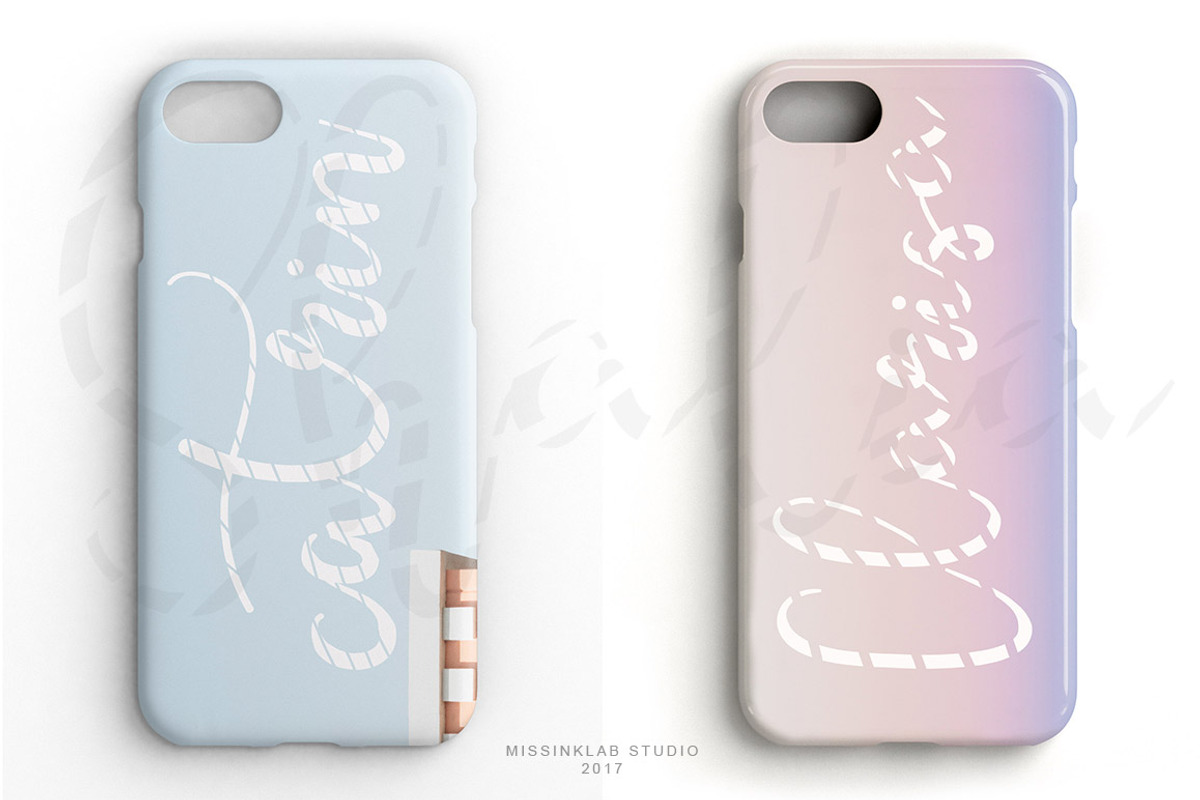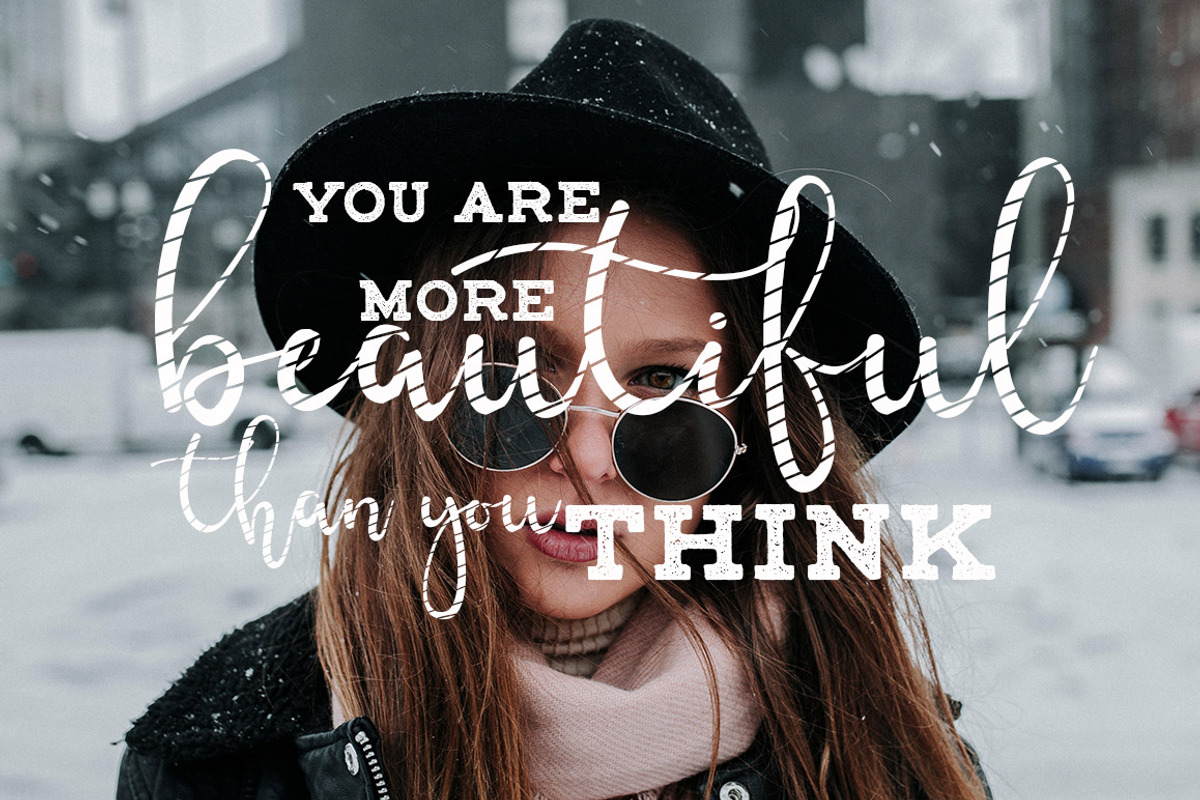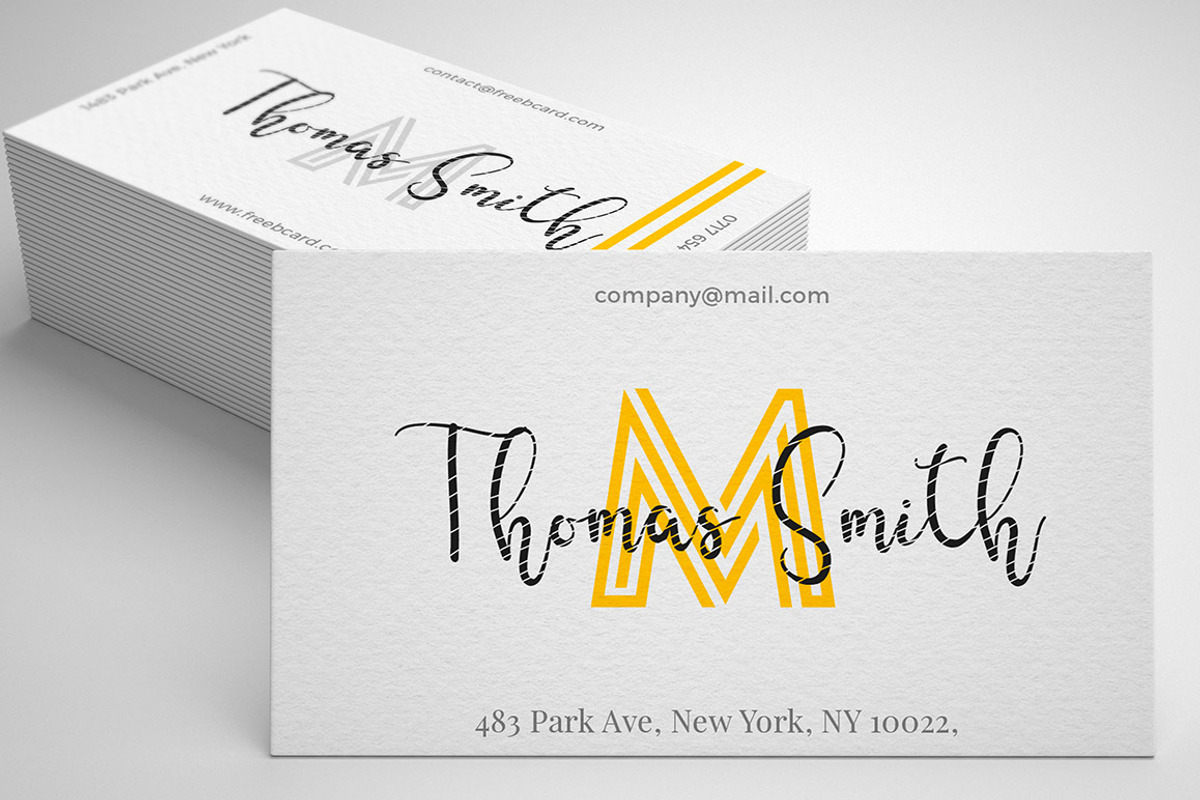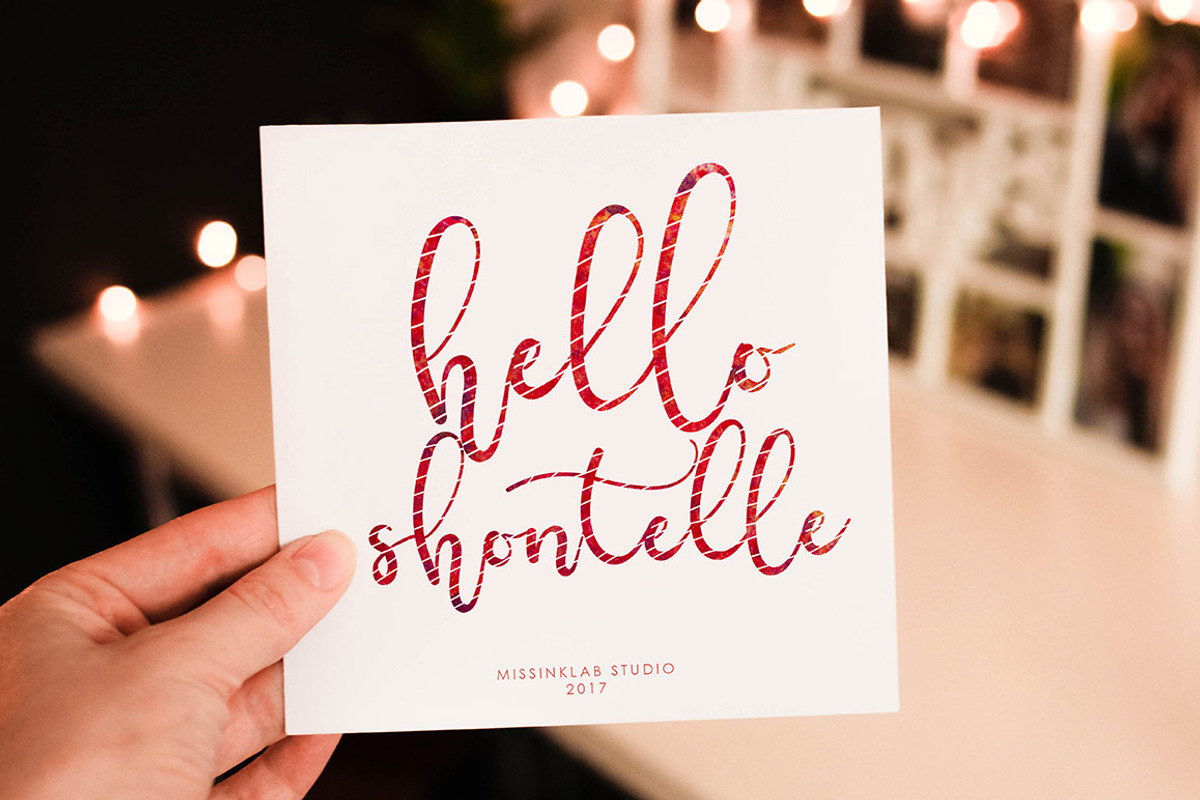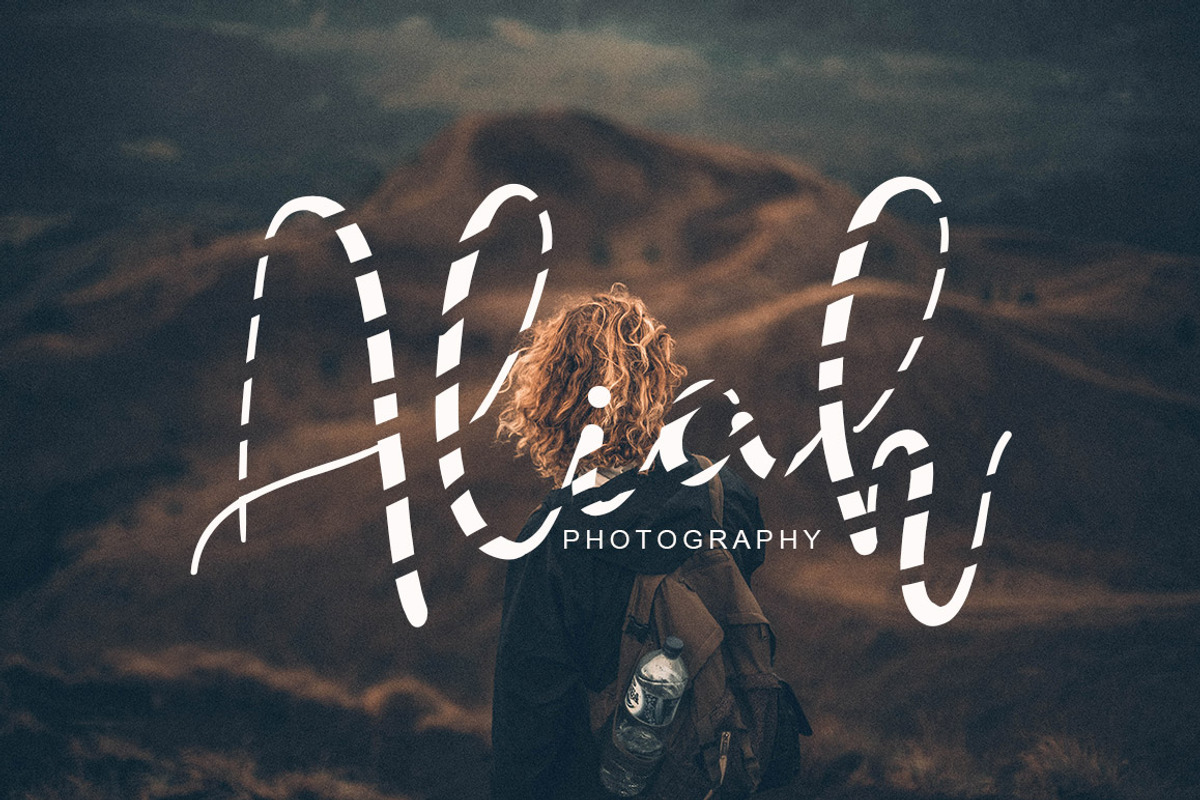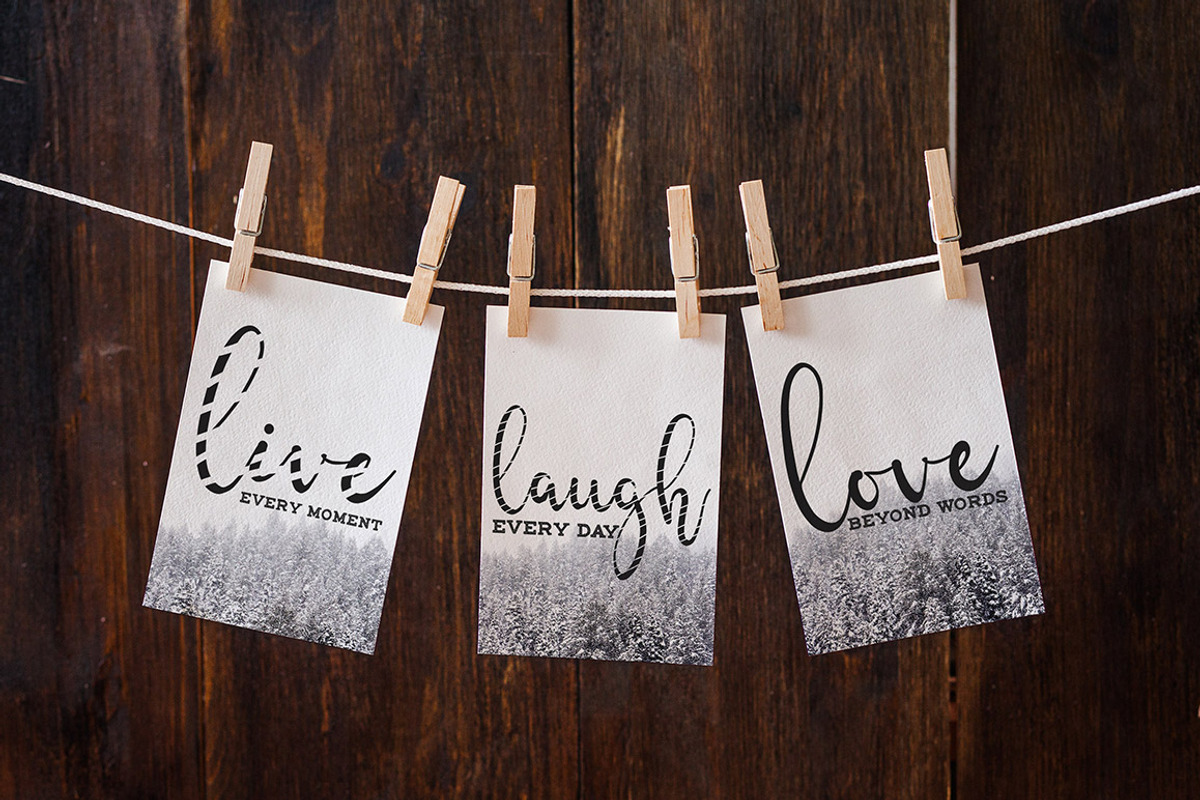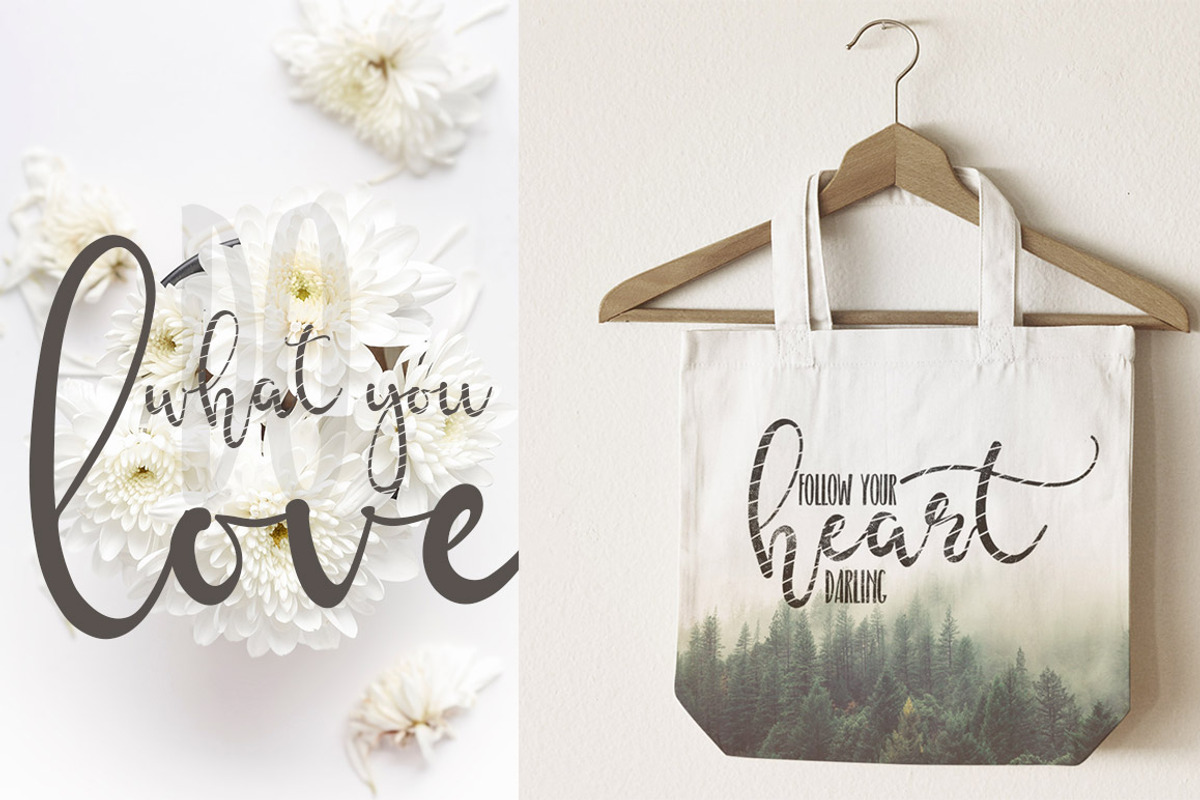
Hello Shalia - FONT TRIO
Hello Shalia is modern script font. With modern script style this font will perfect for many different project ex: quotes, blog header, poster, wedding, branding, logo, fashion, apparel, letter, invitation, stationery, etc.
- Hello Shalia Regular
- Hello Shalia Clean Regular
- Hello Shalia Two Regular